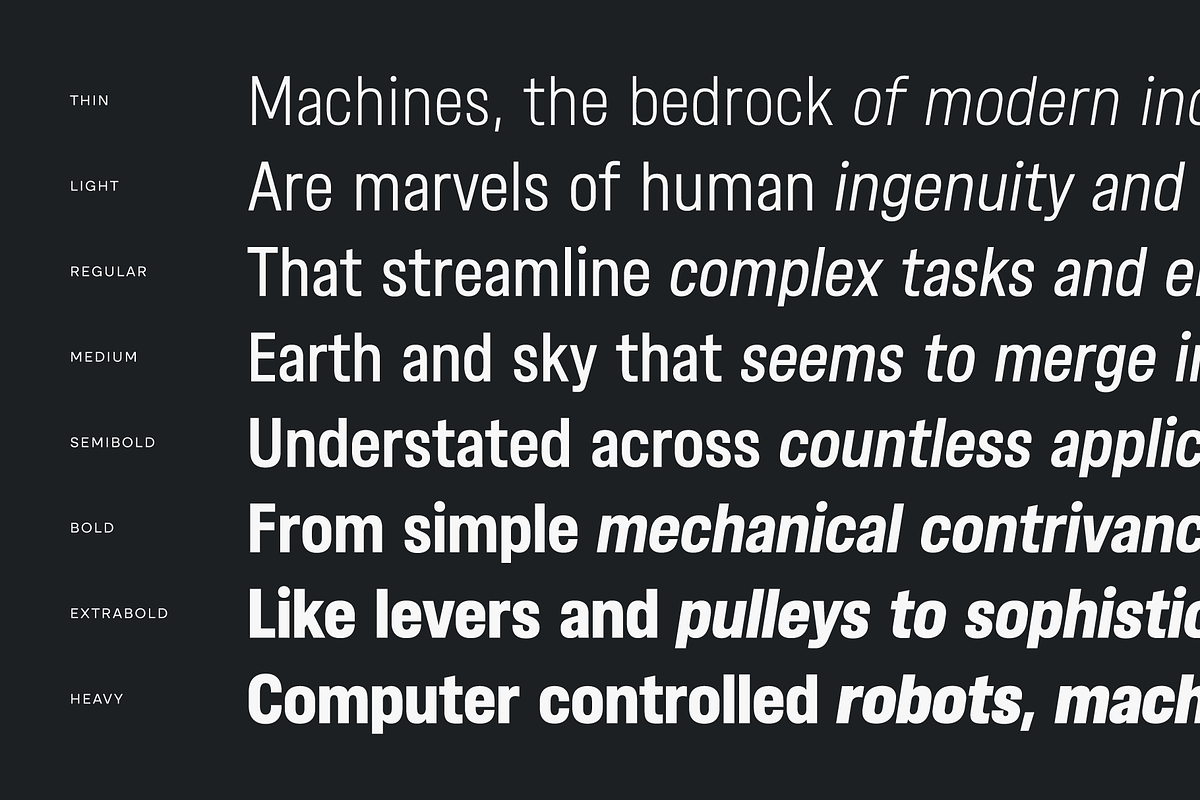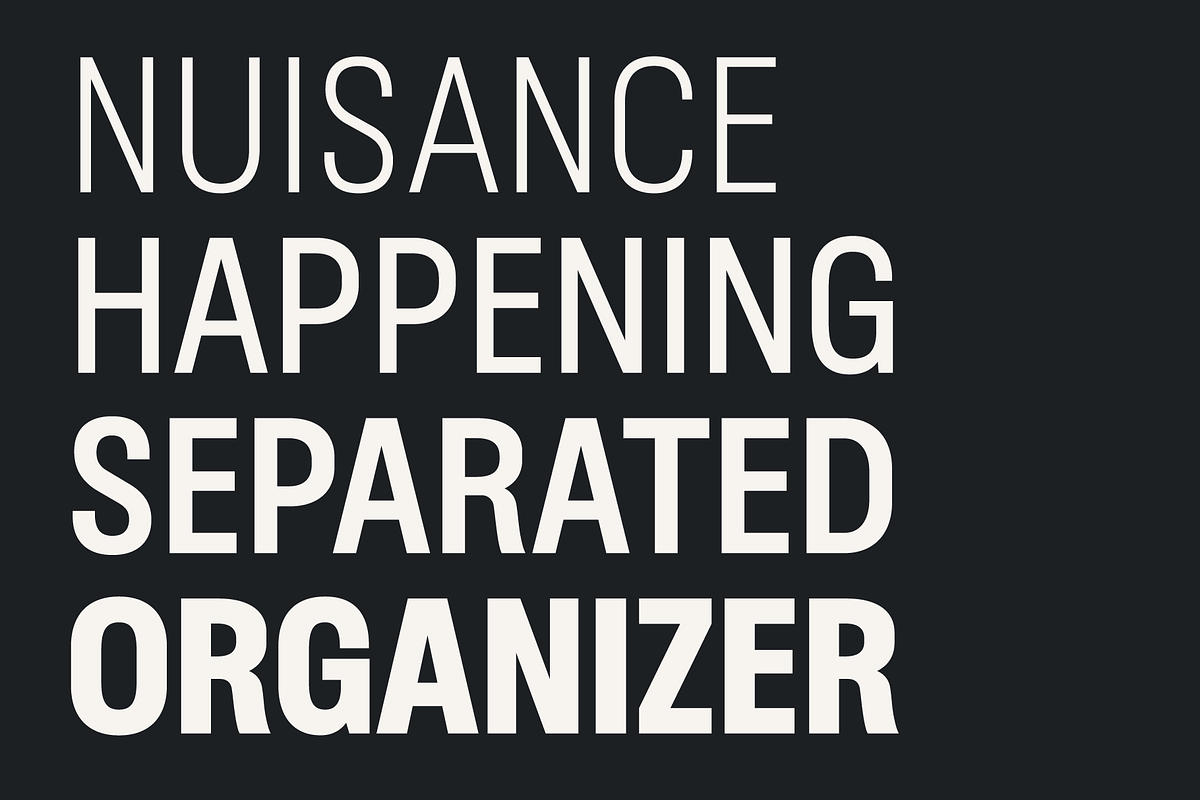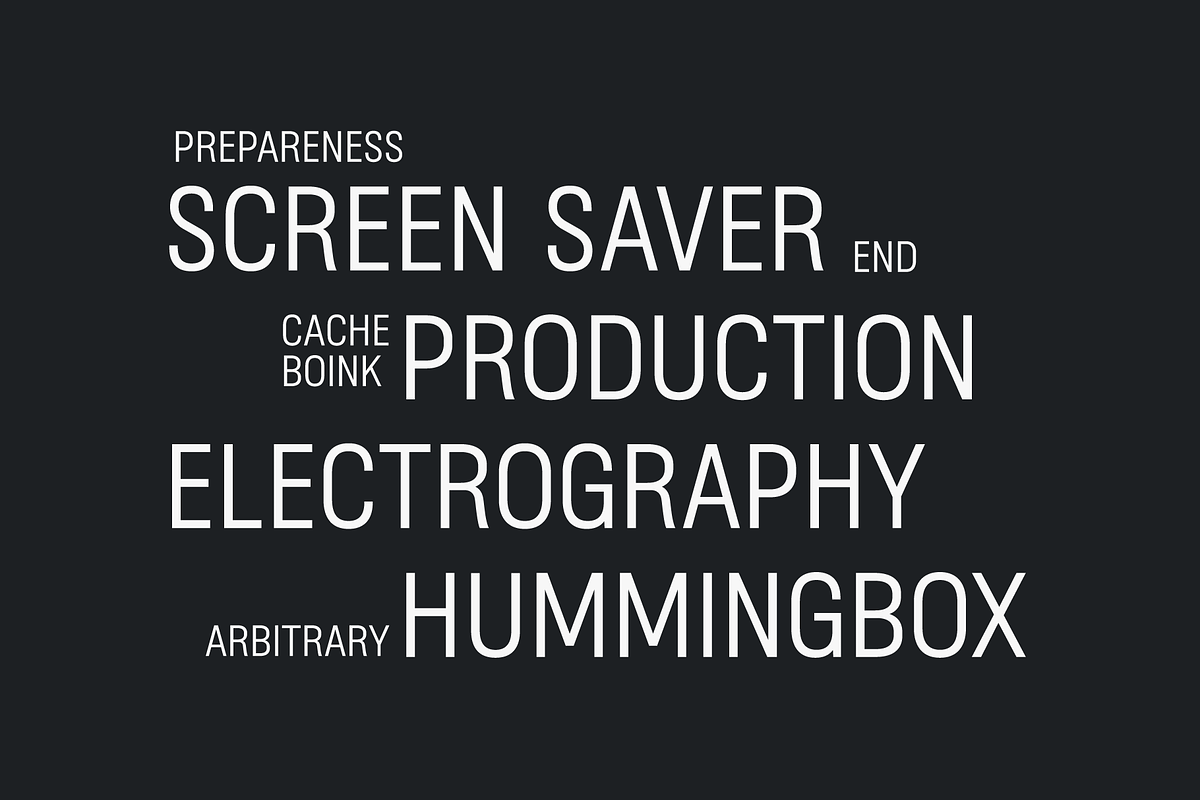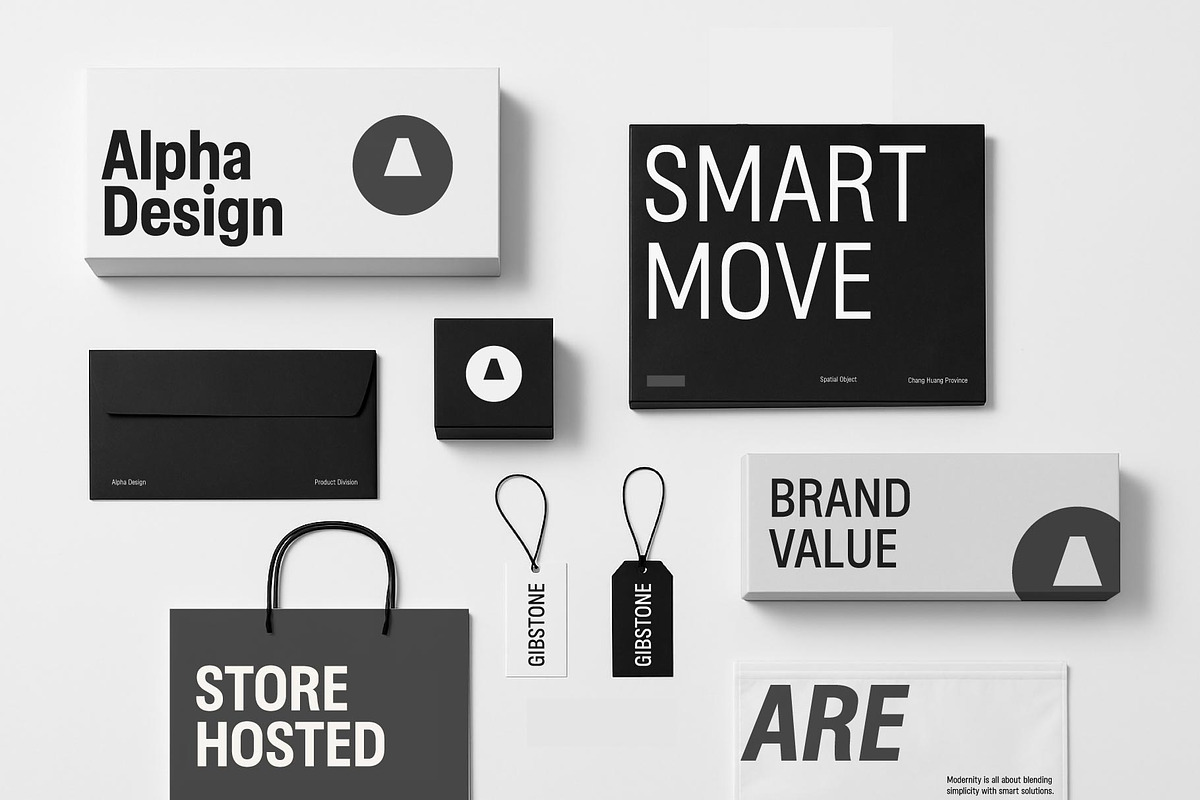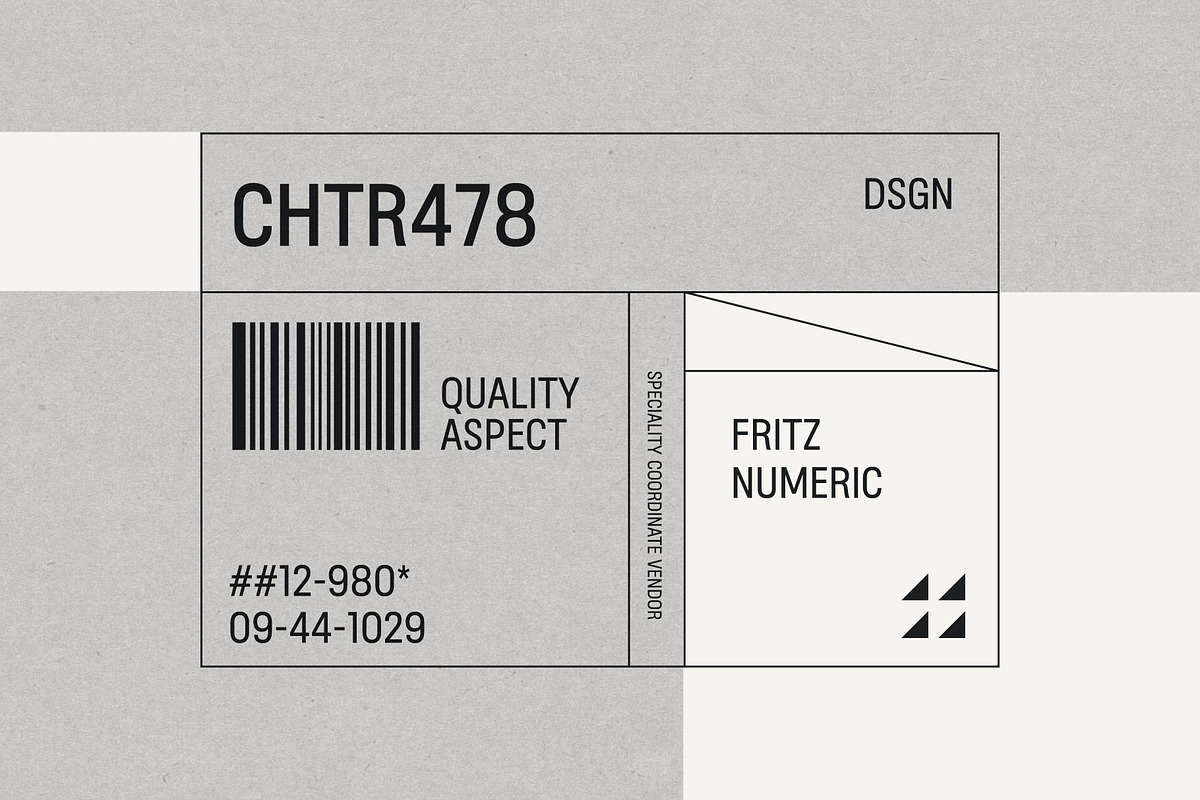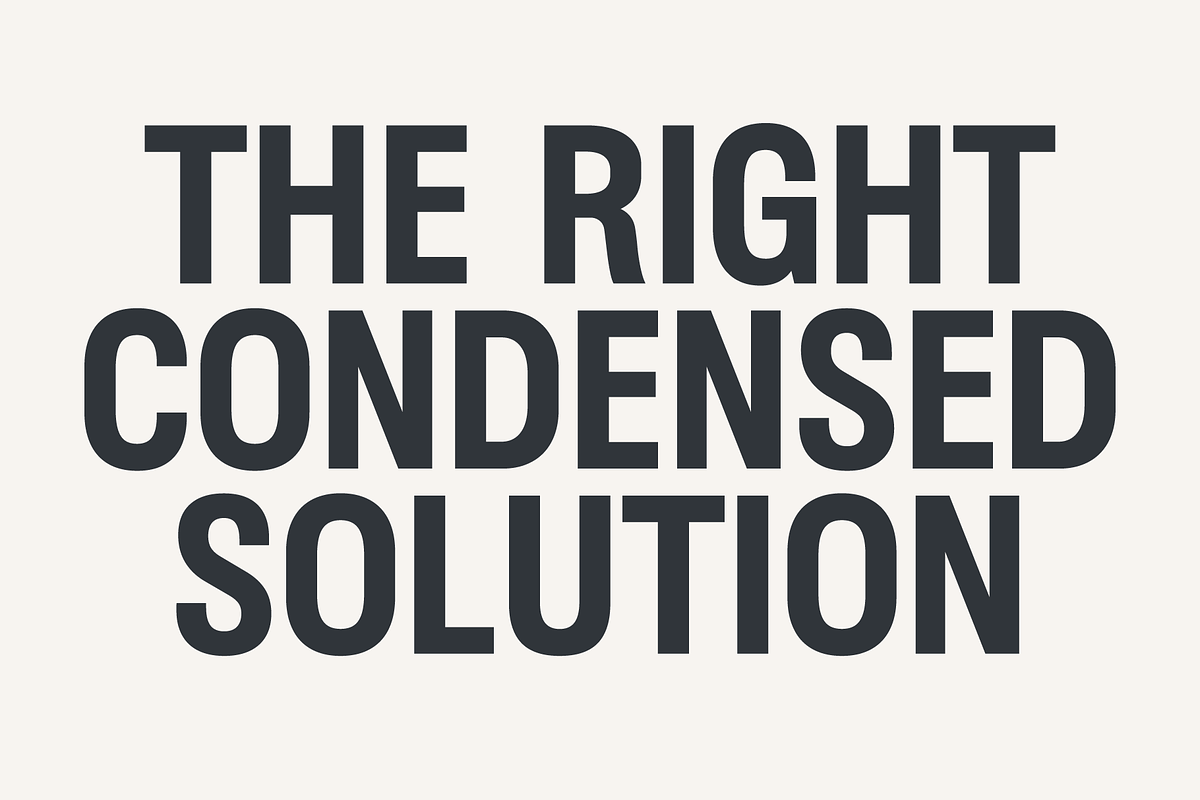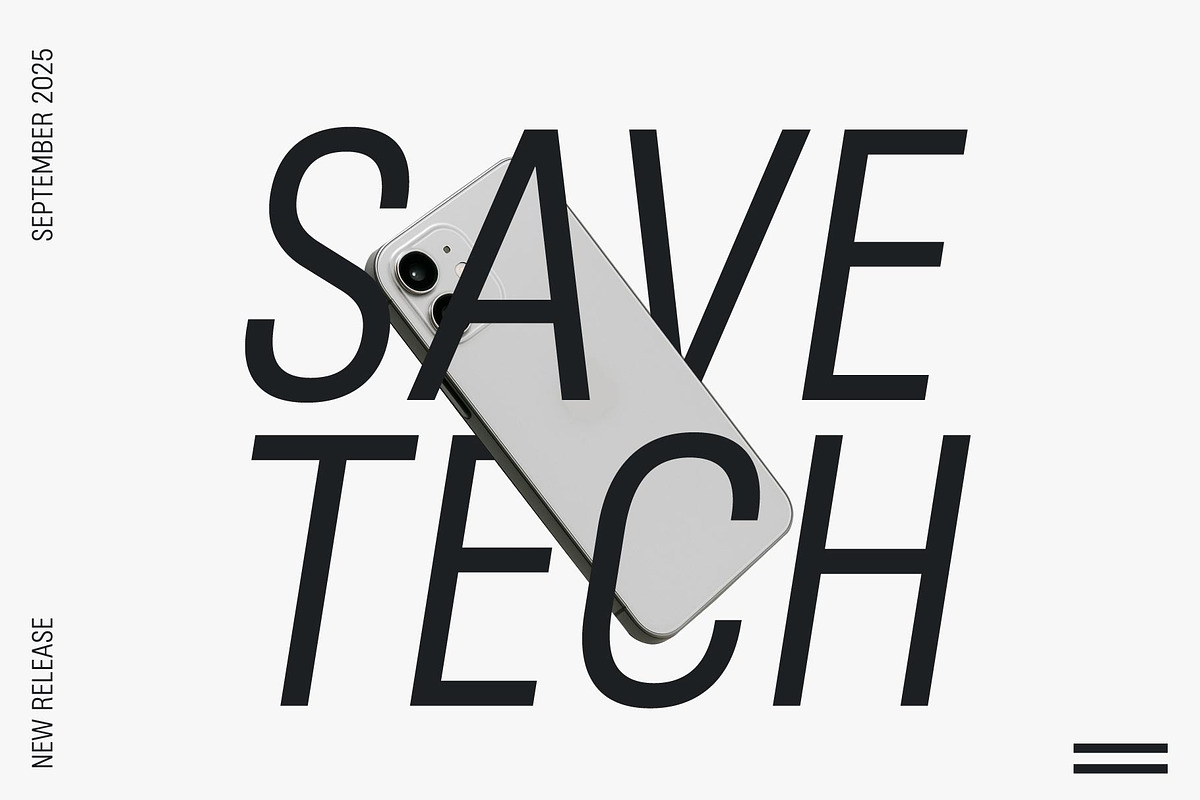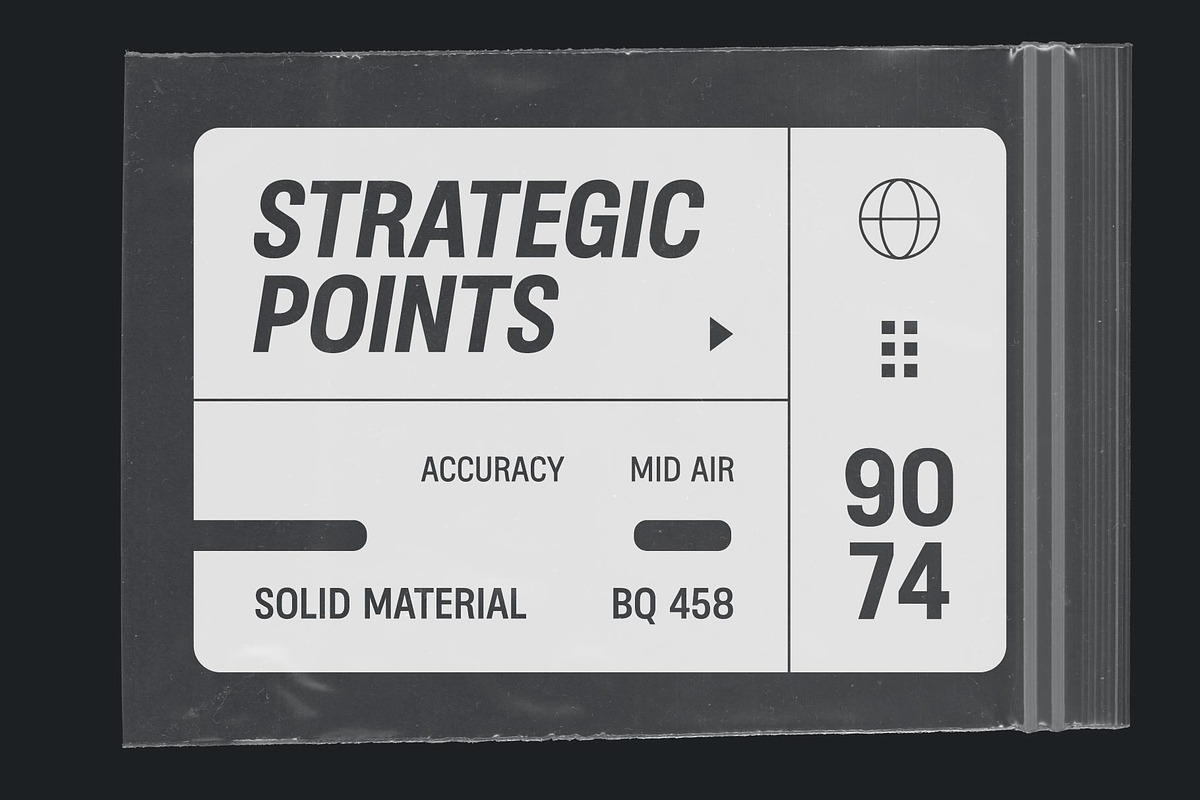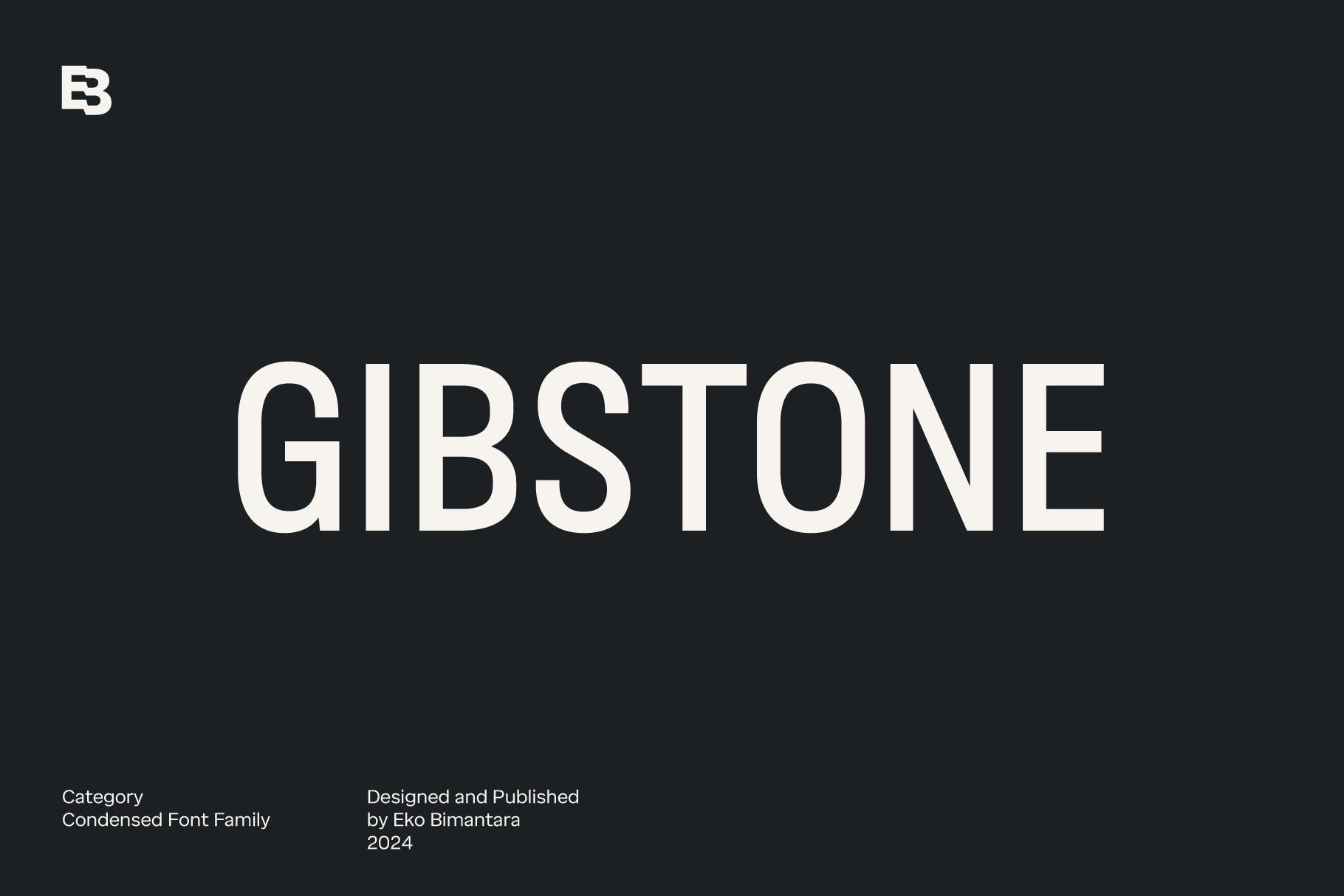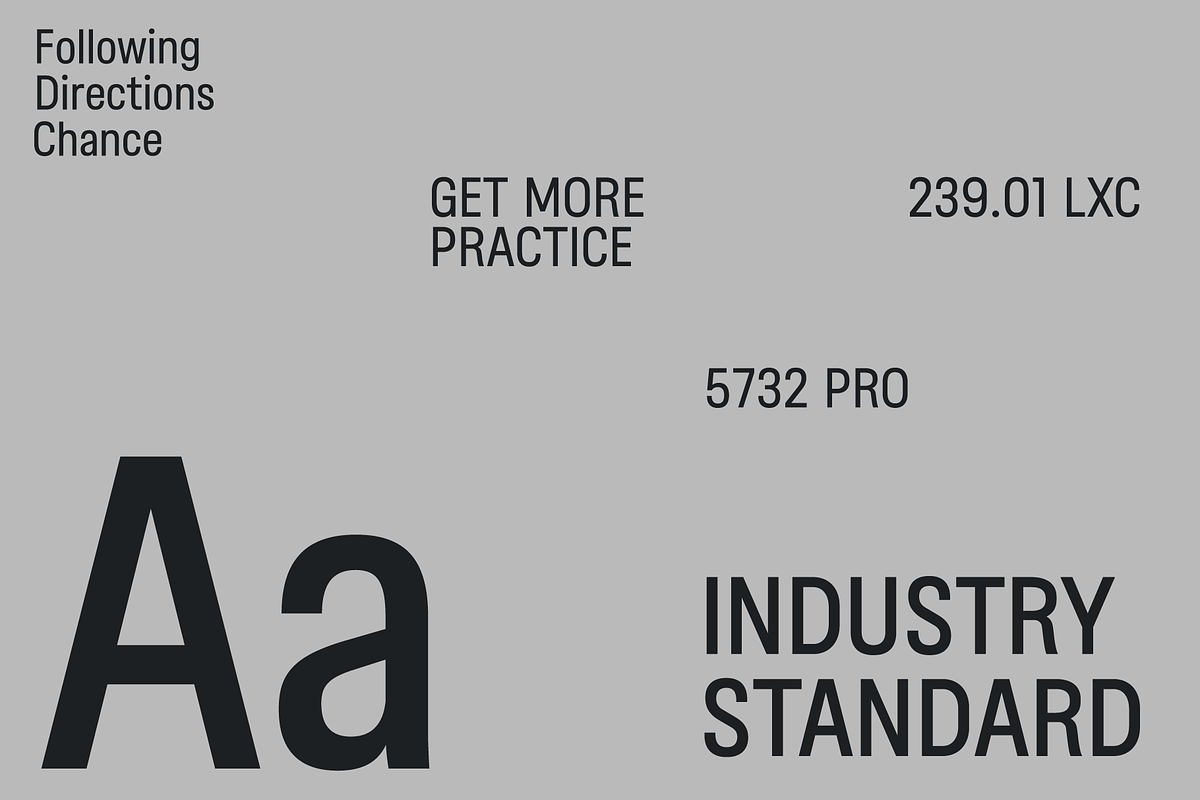
Gibstone; 16 Condensed Sans Fonts
Gibstone is a condensed sans font family that embodies modernity, versatility, boldness, and simplicity. Its sleek design makes it a standout choice for various design applications, ensuring a clean and impactful visual presence. With 16 styles ranging from thin to black, each accompanied by matching obliques and broad Latin characters, Gibstone offers a comprehensive and adaptable typeface solution for designers seeking a cohesive and dynamic font family.
Ideal for display, large-size settings, and headers, Gibstone seamlessly integrates into a variety of layout designs, logos, websites, brand identities, and product packaging. Its straightforward yet powerful aesthetic is perfect for both text and web font usage, making it a valuable asset for broad graphic design projects and creative purposes. Gibstone’s blend of modern simplicity and bold character ensures that your designs will make a lasting impression across diverse mediums.